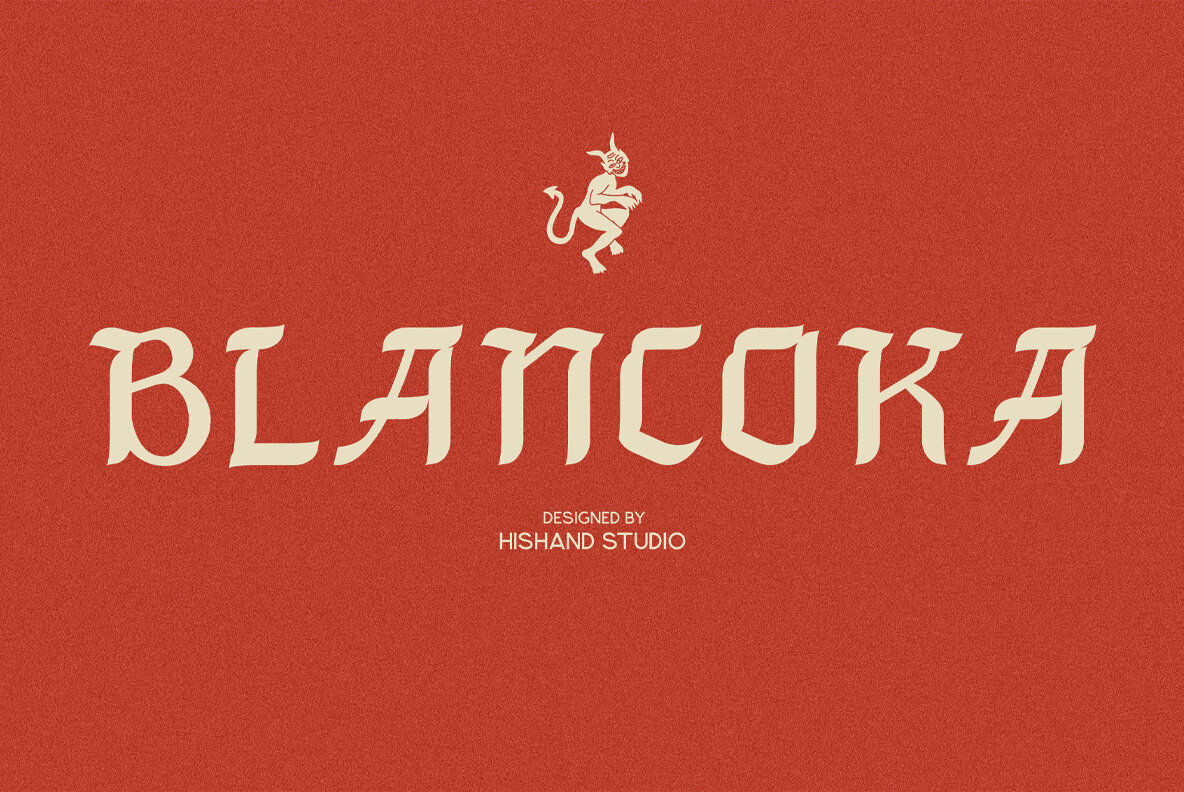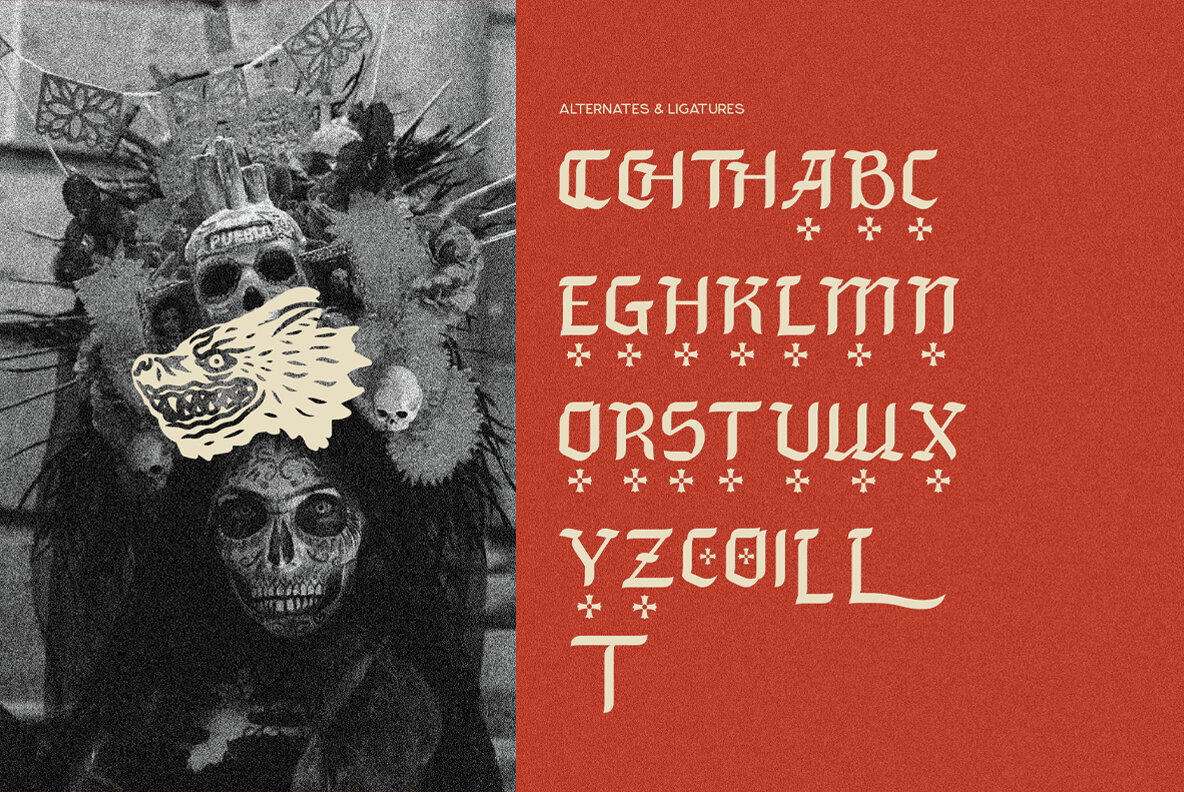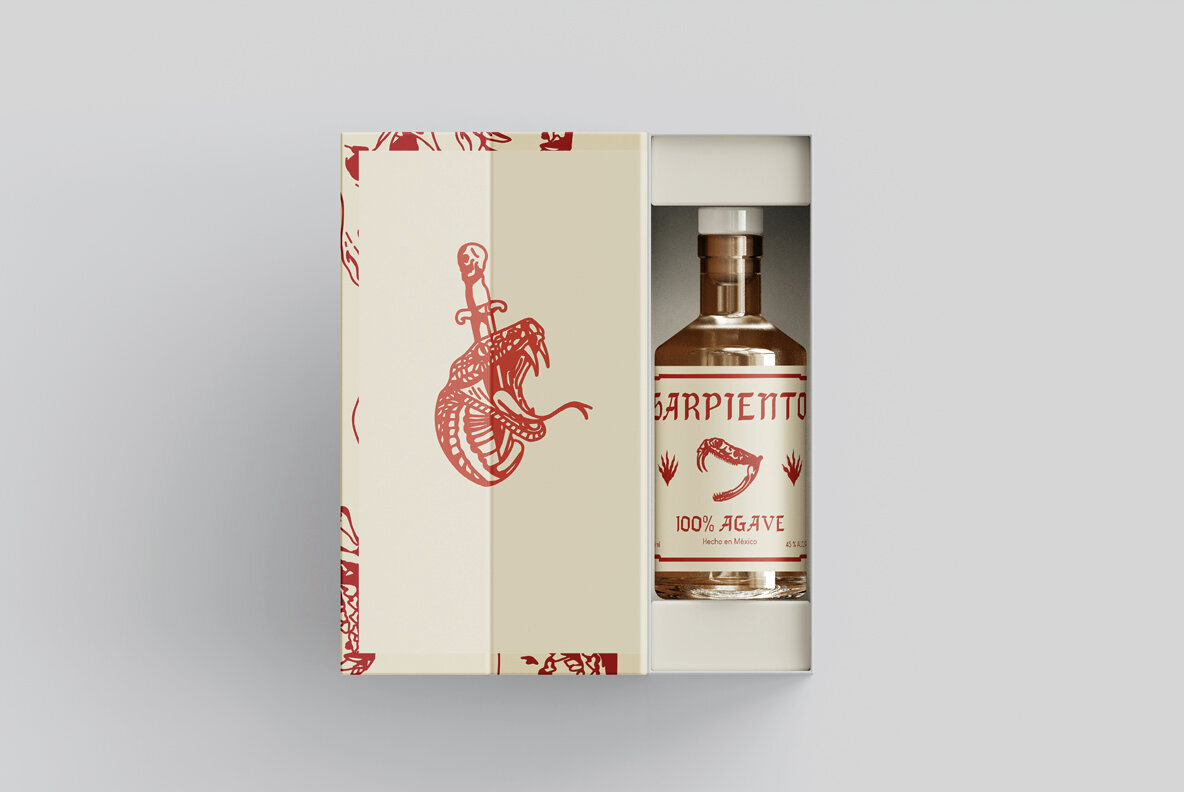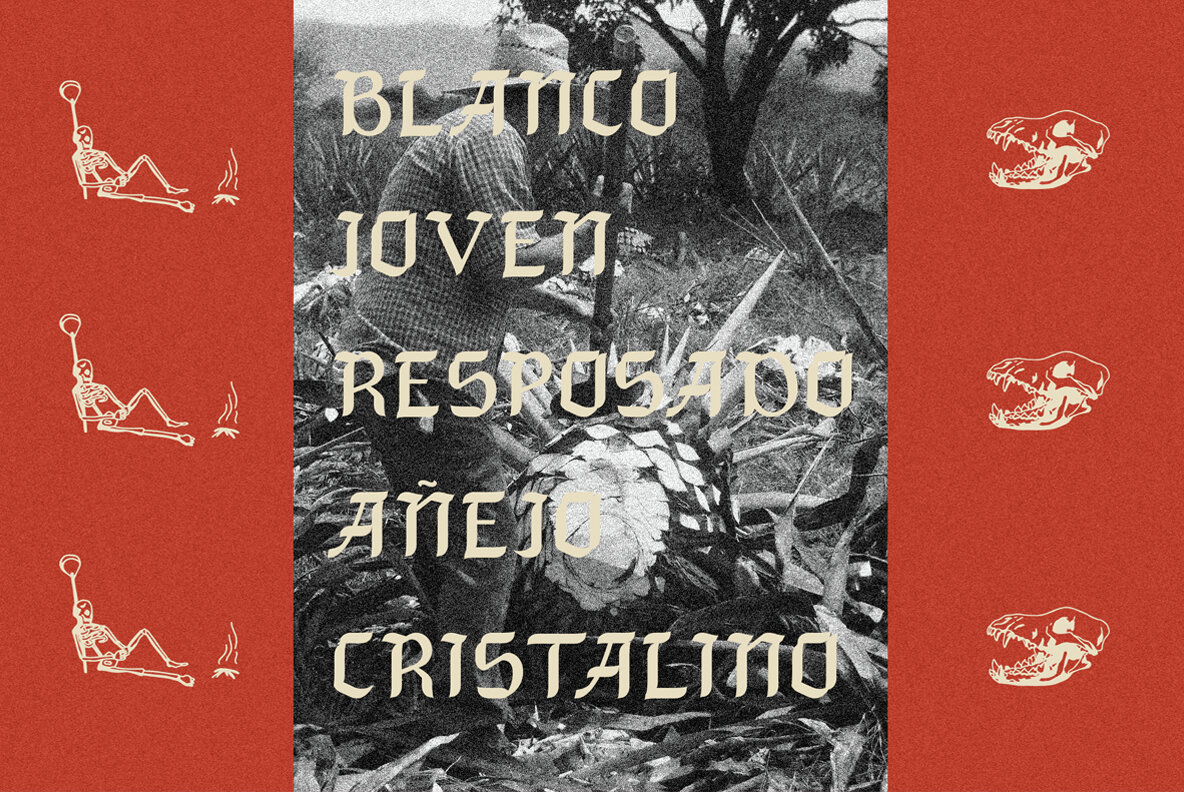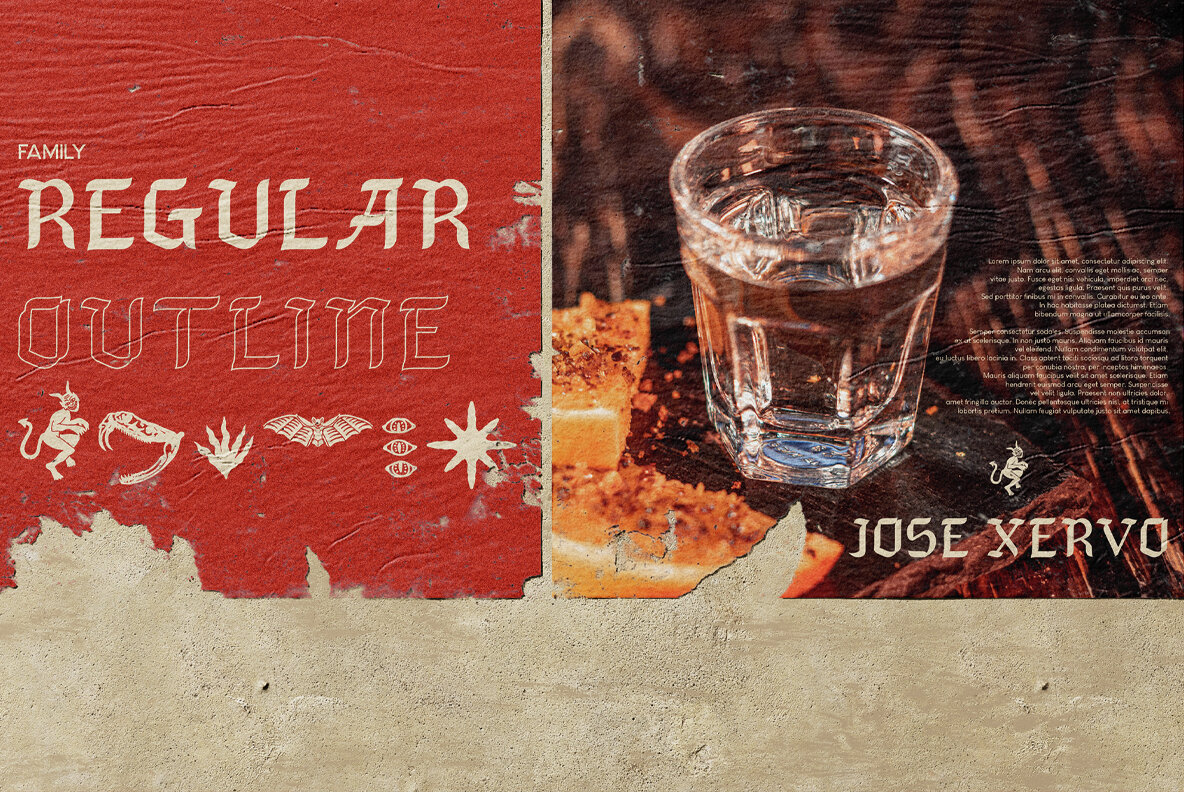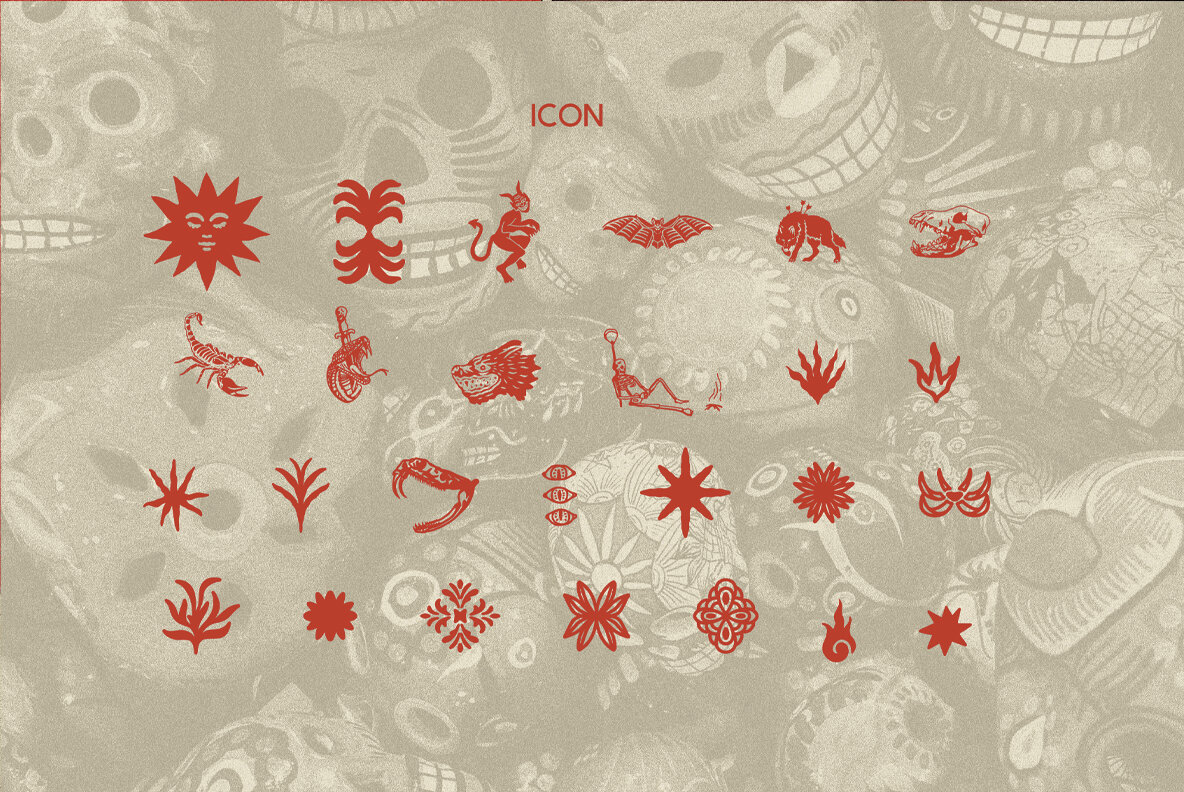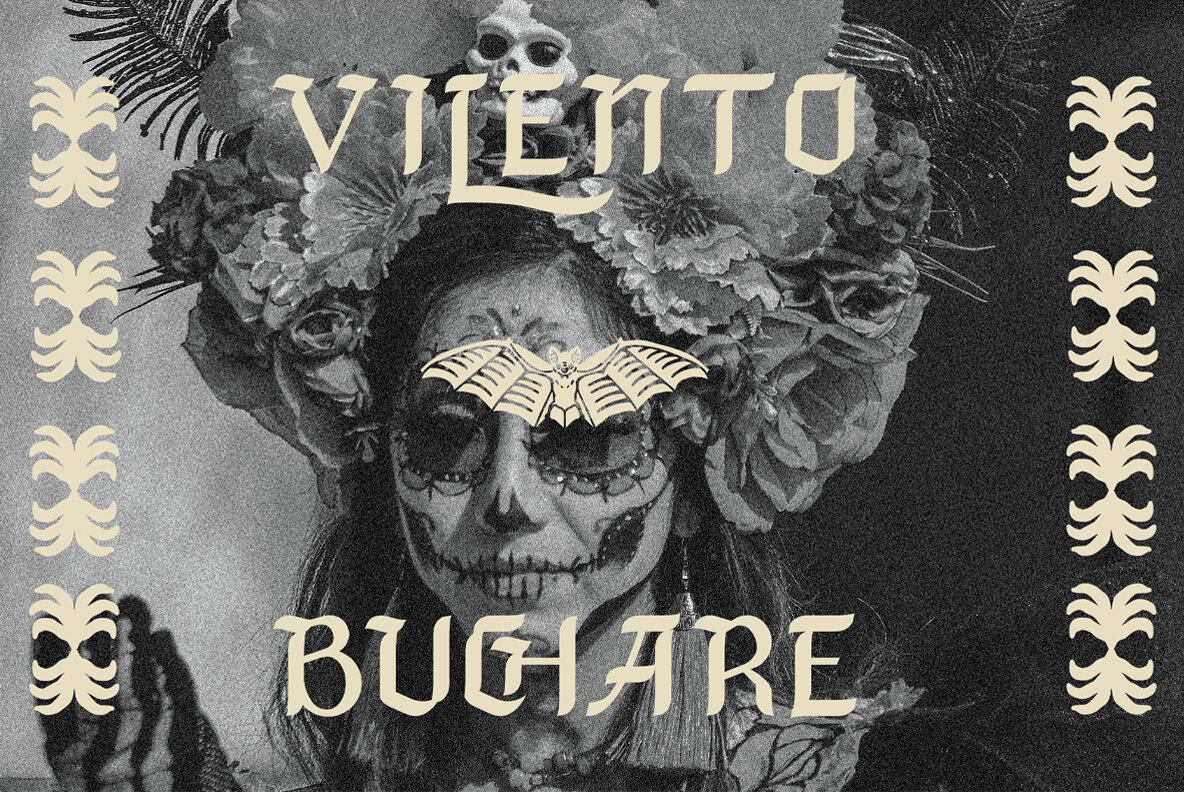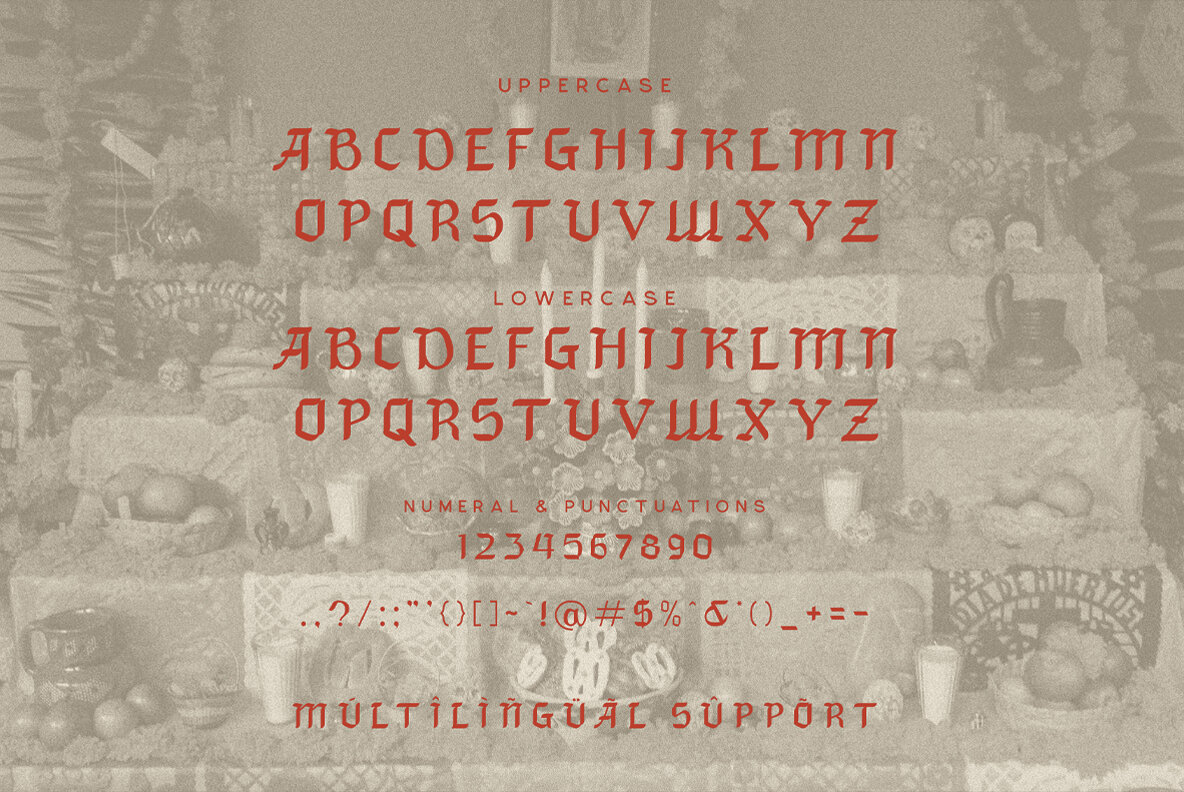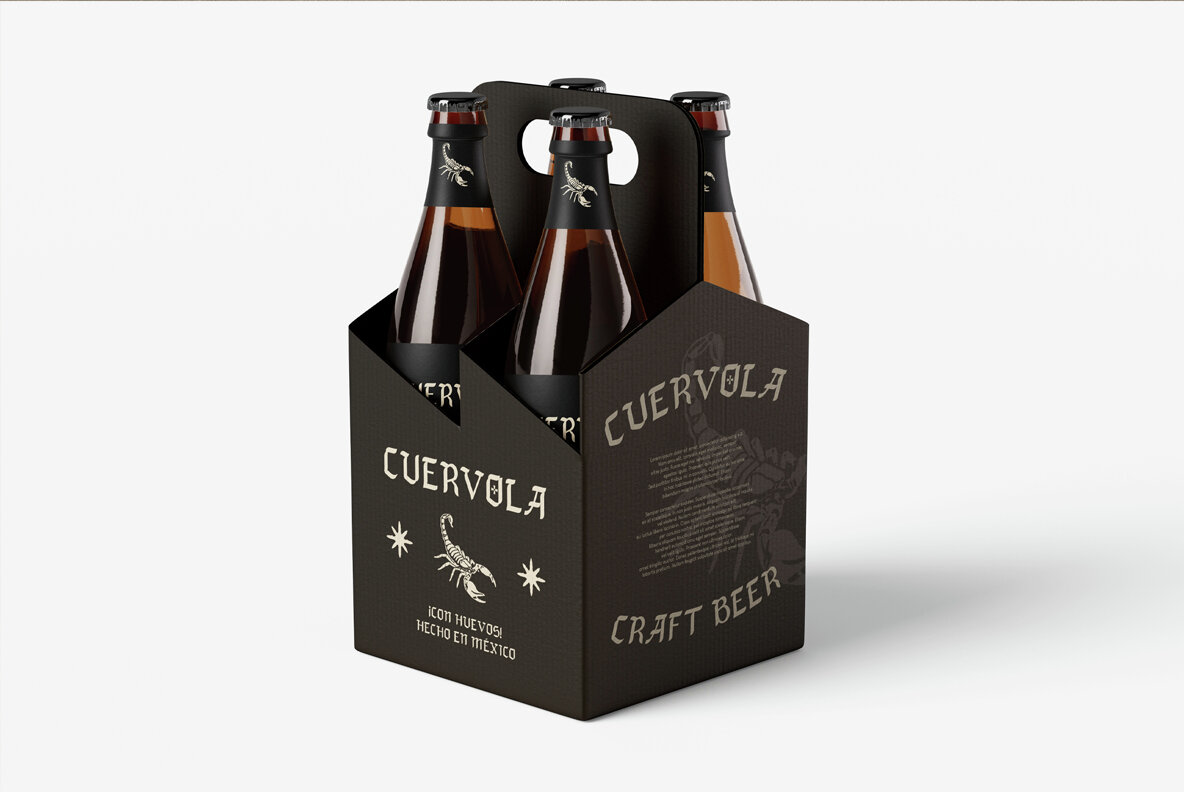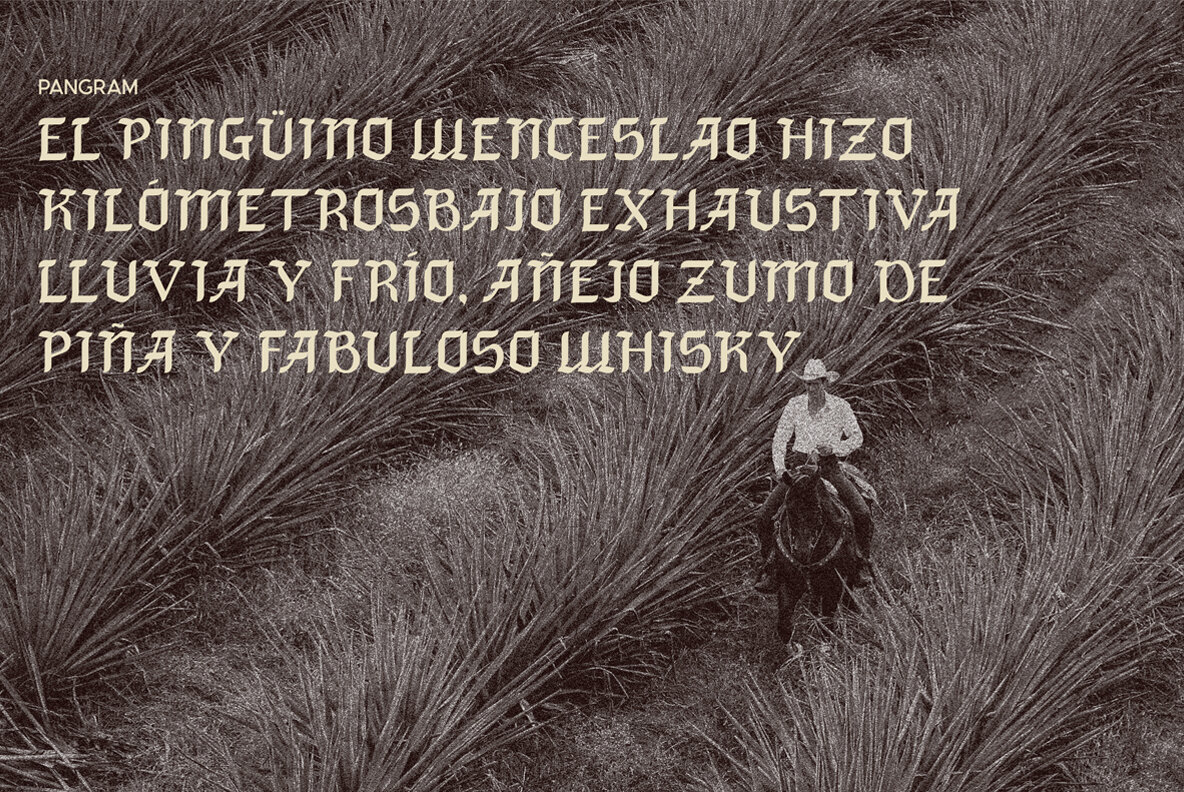
Blancoka Font
Blancoka Regular
Blancoka Icon
Blancoka Outline
Blancoka is an arresting display font, evocative of Mexico's rich tapestry and the fiery essence of tequila. Merging the timeless appeal of blackletter with a contemporary Latin twist, Blancoka embodies nostalgia while remaining distinctly innovative. Drawing inspiration from bustling Mexican cantinas, classic tequila labels, and vibrant folkloric themes, Blancoka offers a crafted aesthetic infused with a defiant spirit. Its crisp, angled lines mirror the intense desert sun and the captivating dance of mezcal flames. Ideal for branding, packaging, posters, or editorial work, this typeface weaves cultural depth with visual drama, ensuring your creative projects stand out. Features:Blancoka: Bold Display Typeface with Mexican Flair